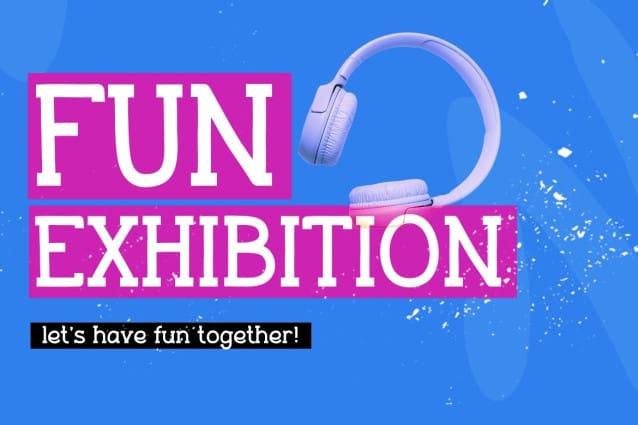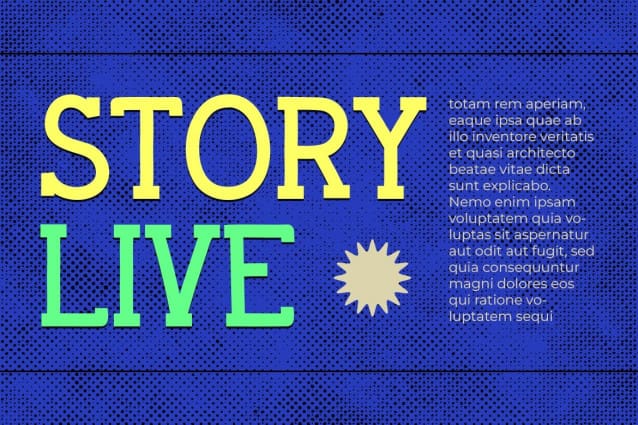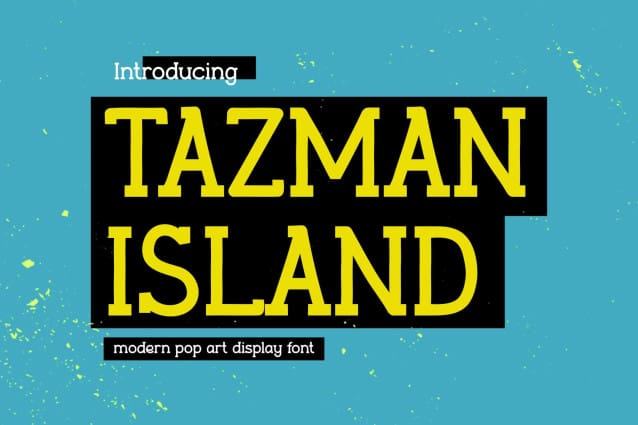
Tazman Island Font
Tazman Island Font is more than just a font; it’s a handwritten masterpiece imbued with the boldness of a serif. Designed for logos, branding, stationery, book covers, magazine design, clothing prints, packaging, animated videos, and more, TazmanIsland brings a touch of handwritten chic to your projects. Each stroke reflects a balance between elegance and boldness, making it ideal for various design applications. Whether you’re creating an original logo, designing stationery, or creating captivating animated videos, TazmanIsland seamlessly integrates the sophistication of handwriting with the commanding presence of a plaque serif. Elevate your design projects and let Tazman Island become the iconic font that will transform your projects into timeless expressions of style and creativity